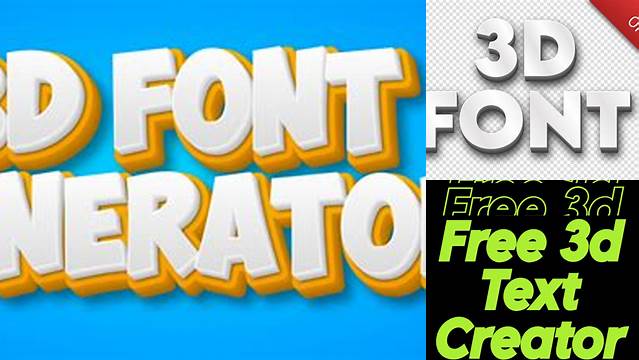
Free 3D Font Generator: Create Stunning Text Effects
Creating eye-catching visuals is essential for grabbing attention in today's digital world. Whether you're designing a logo, sprucing up your website, or crafting social media graphics, the right typography can make all the difference. 3D text effects can add depth and dimension, making your message pop and leaving a lasting impression. Fortunately, you don't need to be a design whiz or invest in expensive software to create stunning 3D text. Several free font 3D generators are available online, allowing you to transform ordinary text into captivating 3D masterpieces with ease. This article will explore the world of free 3D font generators, diving into what they are, how they work, and some of the best options available. We'll also discuss the benefits of using these tools and provide tips for creating the most impactful 3D text designs. So, if you're ready to take your text to the next dimension, let's get started! These generators typically offer a user-friendly interface where you can input your desired text, choose from various fonts, and customize the 3D effect. You can often adjust parameters like depth, extrusion, lighting, and shadow to achieve the perfect look. Some generators even allow you to add textures and materials to your 3D text, further enhancing the realism and visual appeal. The possibilities are endless, and the best part is that you can experiment with different styles and settings without spending a dime. With a free font 3D generator, you can easily create professional-looking graphics for your personal or commercial projects. This means you can enhance your branding, create engaging marketing materials, or simply add a touch of flair to your creative endeavors. The accessibility of these tools makes them a fantastic resource for anyone looking to elevate their design game.
What is a Free Font 3D Generator?
A free font 3D generator is an online tool that allows you to convert regular 2D text into a three-dimensional graphic. Think of it as a virtual workshop where you can sculpt and mold letters into eye-catching designs. These generators typically offer a range of customization options, allowing you to tweak the depth, angle, color, and lighting of your text. Many also include a variety of fonts and textures to choose from, giving you even more creative control. The beauty of these tools lies in their simplicity. You don't need advanced design skills or expensive software to create professional-looking 3D text. Most generators have user-friendly interfaces that guide you through the process step-by-step. You simply type in your desired text, select your preferred settings, and voila – your 3D text is ready to download! These generators work by taking the 2D outline of a font and adding depth to it, creating the illusion of a three-dimensional object. This process is often referred to as extrusion. The generator then applies lighting and shading effects to further enhance the 3D appearance. The best generators offer a high degree of control over these parameters, allowing you to fine-tune the look of your text to match your specific needs. For example, you might want to create a bold, metallic 3D text for a logo or a soft, glowing 3D text for a website header. The flexibility of these tools makes them ideal for a wide range of applications. Free font 3D generators are an invaluable resource for anyone looking to add a touch of visual flair to their projects. Whether you're a seasoned designer or a complete beginner, these tools can help you create stunning 3D text effects quickly and easily. So, if you're ready to take your text to the next level, let's explore some of the top options available online.
Benefits of Using a Free Font 3D Generator
Using a free font 3D generator comes with a plethora of benefits, especially if you're looking to enhance your design projects without breaking the bank. One of the most significant advantages is the cost-effectiveness. Instead of investing in expensive 3D design software, you can achieve impressive results using these free online tools. This is particularly beneficial for small businesses, startups, and individuals who are working with limited budgets. Another major benefit is the ease of use. Most free 3D text generators are designed with user-friendliness in mind. They feature intuitive interfaces and simple controls, making them accessible even to those with no prior design experience. You don't need to be a 3D modeling expert to create stunning text effects; simply type in your text, choose your settings, and let the generator do the work. This ease of use translates to significant time savings. Creating 3D text manually in complex software can be a time-consuming process, but with a free generator, you can achieve the same results in minutes. This allows you to focus on other aspects of your project, such as content creation or marketing. The versatility offered by free 3D font generators is another key advantage. These tools typically offer a wide range of customization options, allowing you to create text effects that perfectly match your brand or design style. You can experiment with different fonts, colors, depths, lighting effects, and textures to achieve the desired look. This level of customization ensures that your 3D text stands out and effectively communicates your message. Moreover, free font 3D generators often provide a quick and easy way to visualize your text in 3D. This can be incredibly helpful for brainstorming and experimenting with different design ideas. You can quickly create multiple variations of your text in 3D and compare them side-by-side to see which one works best. Finally, using a free font 3D generator can be a great way to learn about 3D design principles. By experimenting with different settings and effects, you can gain a better understanding of how depth, lighting, and texture contribute to the overall look and feel of a design. This knowledge can be valuable if you ever decide to invest in more advanced 3D design software or hire a professional designer. In summary, free font 3D generators offer a cost-effective, user-friendly, versatile, and educational solution for creating stunning 3D text effects. They are an invaluable tool for anyone looking to enhance their design projects without spending a fortune.
Top Free Font 3D Generators Online
When it comes to free font 3D generators online, you're spoiled for choice! The internet is brimming with options, each offering its unique set of features and functionalities. To help you navigate this landscape, we've compiled a list of some of the top contenders. One popular choice is TextPro. This generator is known for its user-friendly interface and a wide range of pre-designed templates. You can easily customize these templates to create your own unique 3D text effects. TextPro offers a variety of font styles, colors, and textures, allowing you to achieve a diverse range of looks. It's a great option for beginners and experienced designers alike. Another excellent option is 3D Text Maker. This generator is particularly strong in its ability to create realistic 3D text effects. It allows you to adjust the depth, lighting, and shadows of your text to create a truly immersive experience. 3D Text Maker also offers a range of textures, including metal, glass, and wood, adding another layer of realism to your designs. FlamingText is a well-established name in the world of online text effects, and their 3D generator is no exception. This tool boasts a vast library of fonts and styles, allowing you to create everything from bold and impactful headlines to elegant and sophisticated text designs. FlamingText also offers a range of special effects, such as fire, ice, and water, adding a unique touch to your creations. For those who prefer a more streamlined and minimalist approach, Render Text is an excellent choice. This generator focuses on simplicity and ease of use, making it ideal for quick and straightforward 3D text creation. Render Text offers a limited but carefully curated selection of fonts and styles, ensuring that you can create professional-looking designs without being overwhelmed by options. PhotoFunia is another popular online tool that offers a range of photo editing and text effect features, including a 3D text generator. While PhotoFunia's 3D text generator may not be as feature-rich as some of the other options on this list, it's incredibly easy to use and provides a quick and convenient way to add 3D text to your images. When choosing a free font 3D generator, it's essential to consider your specific needs and preferences. Think about the types of designs you want to create, the level of customization you require, and the ease of use of the tool. By exploring the different options available, you can find the perfect generator to bring your 3D text visions to life.
Tips for Creating Impactful 3D Text Designs
Creating impactful 3D text designs involves more than just typing in your text and clicking a button. It requires careful consideration of various design elements to ensure your text not only looks visually appealing but also effectively communicates your message. One of the most crucial aspects is font selection. The font you choose should align with the overall tone and style of your design. For example, a bold and sans-serif font might be suitable for a modern and energetic design, while a serif font might be more appropriate for a classic and elegant design. Experiment with different fonts to see which one best complements your message. Color is another critical element in 3D text design. Choose colors that are visually appealing and create a strong contrast between the text and the background. Consider using complementary colors or a monochromatic color scheme to achieve a harmonious look. Remember that color can also evoke emotions, so choose colors that align with the message you're trying to convey. The depth and extrusion of your 3D text play a significant role in its visual impact. Experiment with different levels of depth to create the desired effect. Too much depth can make the text look cluttered and difficult to read, while too little depth might not create a strong 3D effect. Find the sweet spot that enhances the text without overwhelming the design. Lighting and shadows are essential for creating a realistic 3D effect. Pay attention to the direction and intensity of the light source, as this will affect the appearance of the shadows. Experiment with different lighting setups to achieve the desired look. Adding a subtle shadow can add depth and dimension to your text, while a more pronounced shadow can create a dramatic effect. Texture can add another layer of visual interest to your 3D text. Consider adding textures such as metal, wood, or glass to create a more realistic and tactile appearance. However, be mindful not to overdo it with textures, as this can make the text look busy and distracting. Keep it subtle and use textures that complement the overall design. Finally, consider the overall composition of your design. Make sure your 3D text is well-balanced and harmonizes with the other elements in your design. Avoid clutter and ensure that the text is easy to read and understand. By following these tips, you can create impactful 3D text designs that capture attention and effectively communicate your message.
In conclusion, free font 3D generators are a fantastic resource for anyone looking to add a touch of visual flair to their designs. These tools offer a cost-effective and user-friendly way to create stunning 3D text effects without the need for expensive software or advanced design skills. Whether you're a seasoned designer or a complete beginner, free 3D text generators can help you elevate your projects and create captivating visuals. We've explored the benefits of using these generators, including their cost-effectiveness, ease of use, versatility, and educational value. We've also highlighted some of the top free options available online, such as TextPro, 3D Text Maker, FlamingText, Render Text, and PhotoFunia. Each of these generators offers a unique set of features and functionalities, so it's worth exploring them to find the one that best suits your needs. Furthermore, we've provided tips for creating impactful 3D text designs, emphasizing the importance of font selection, color, depth, lighting, texture, and overall composition. By following these guidelines, you can create 3D text that not only looks visually appealing but also effectively communicates your message. The world of 3D text design is vast and exciting, and free font 3D generators make it accessible to everyone. So, go ahead and experiment with different styles, settings, and effects to discover your own unique 3D text creations. Whether you're designing a logo, creating social media graphics, or sprucing up your website, 3D text can add a touch of magic and make your message truly stand out. So, embrace the power of free font 3D generators and let your creativity soar!